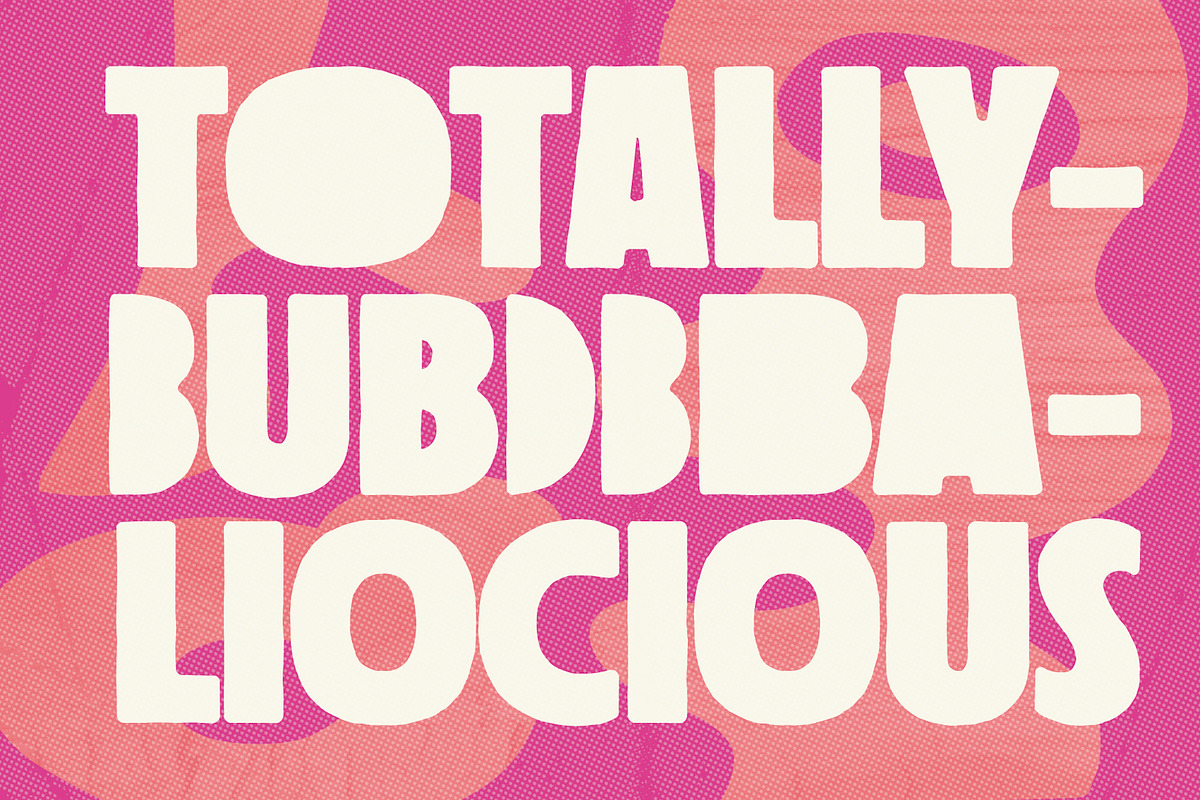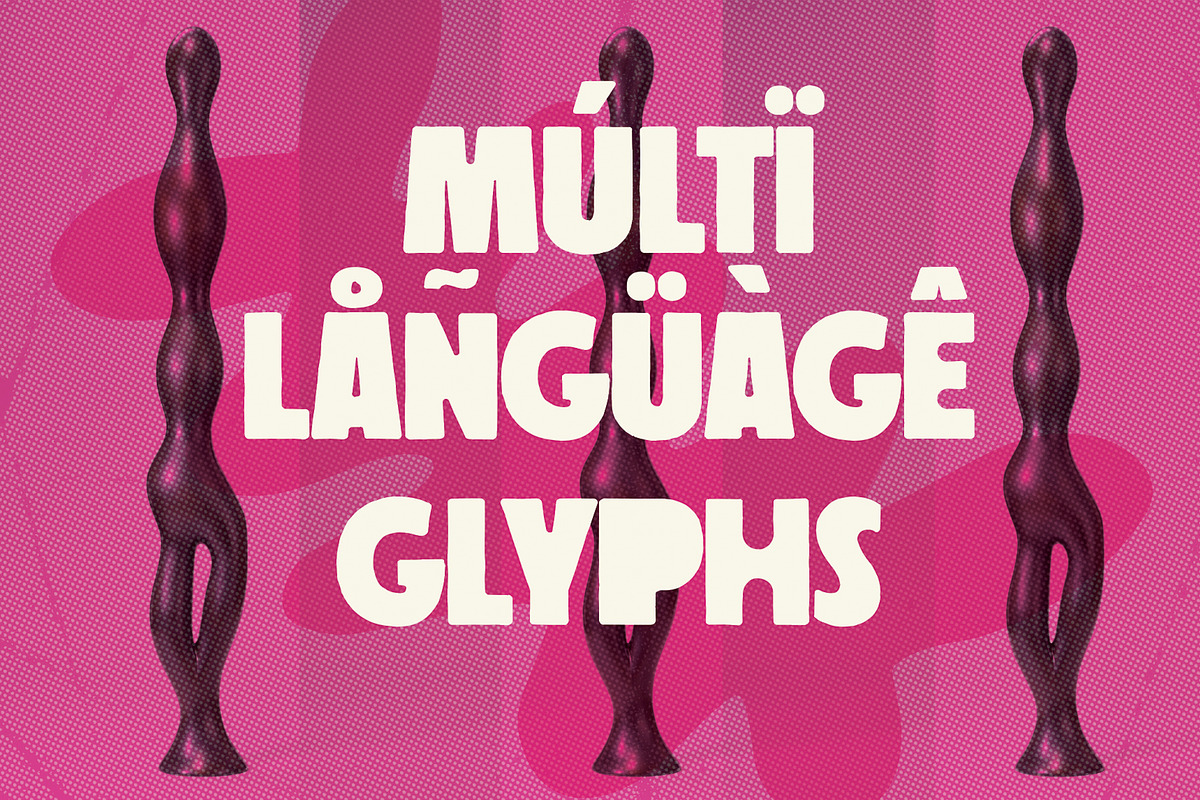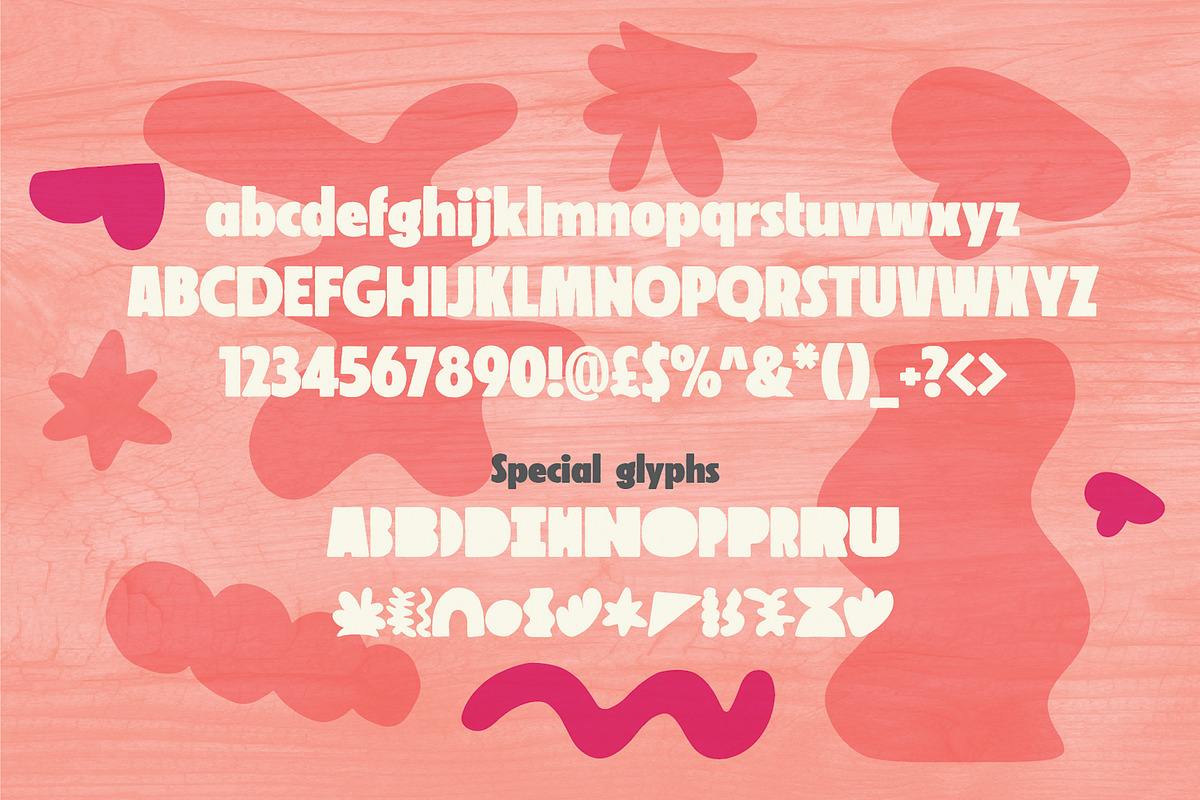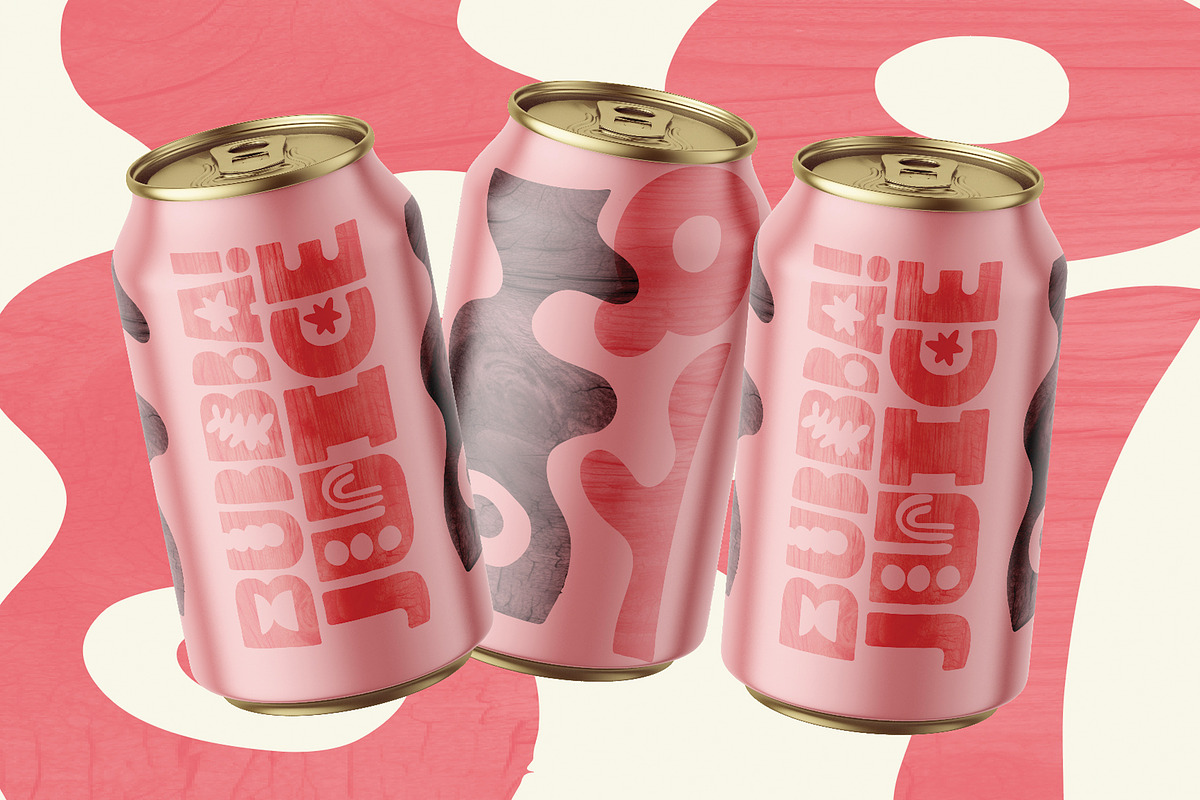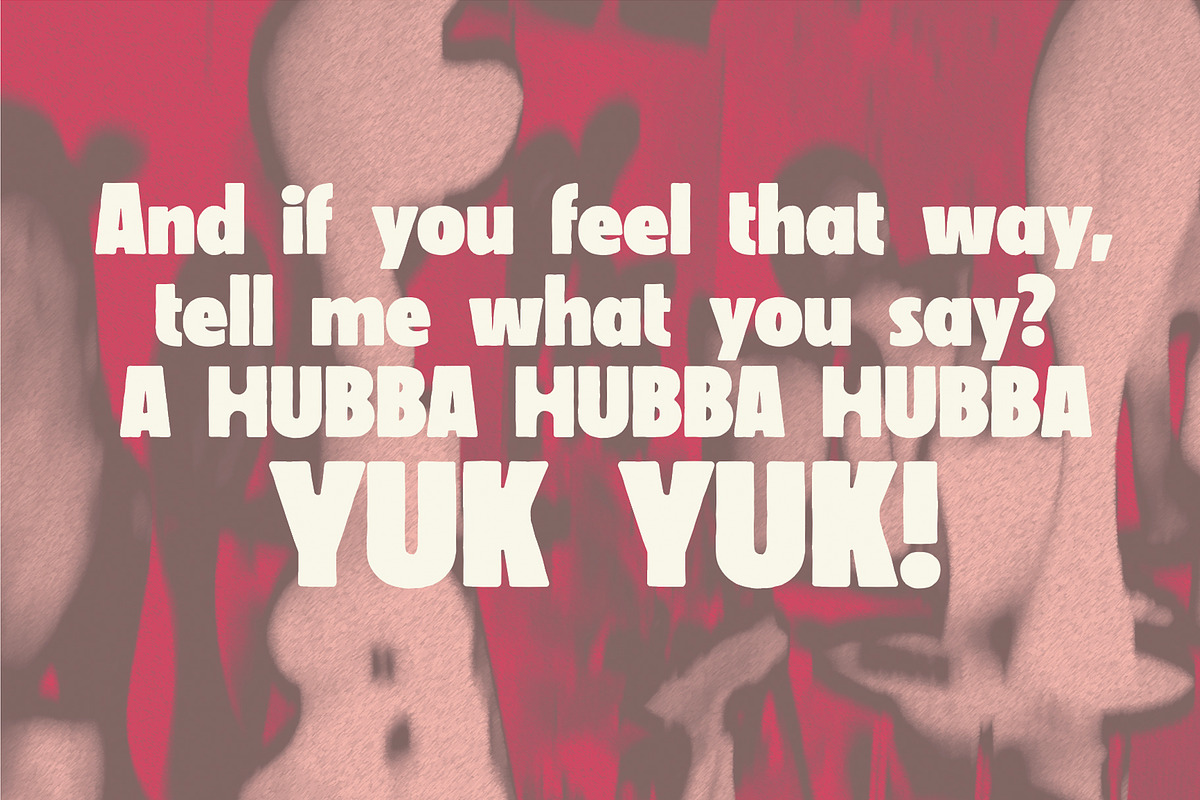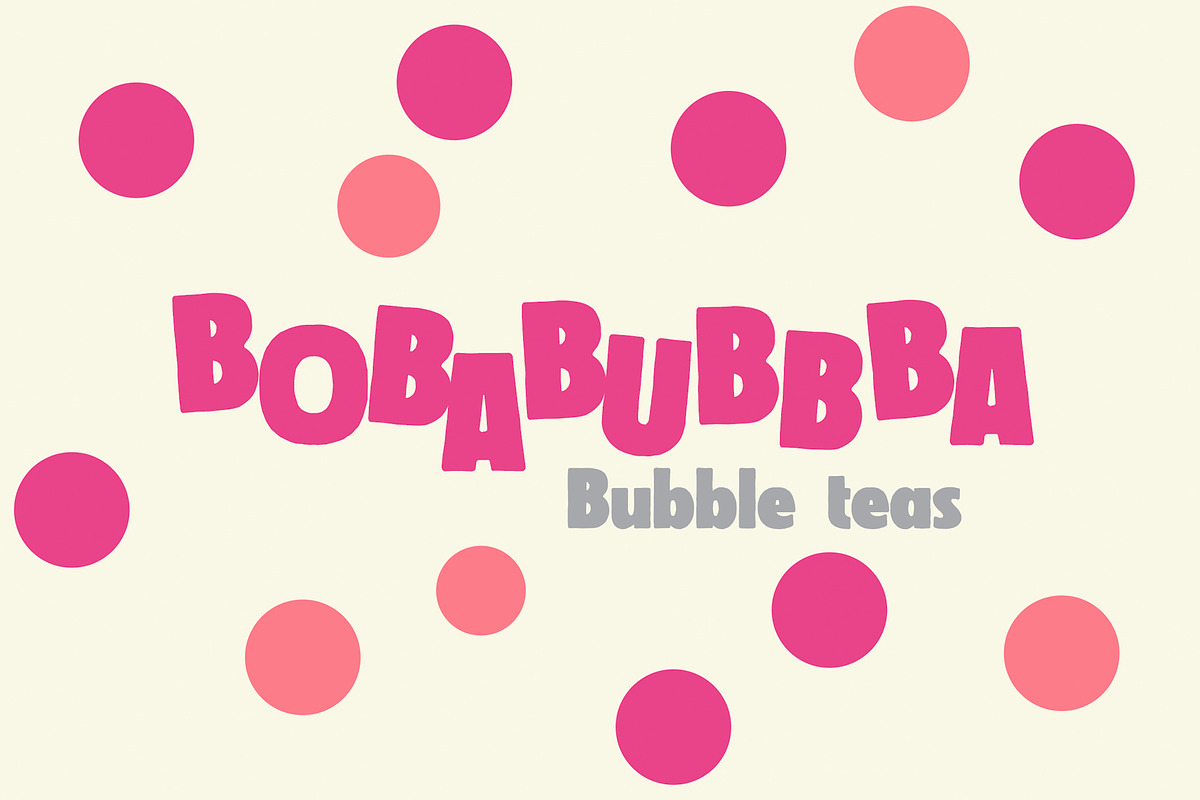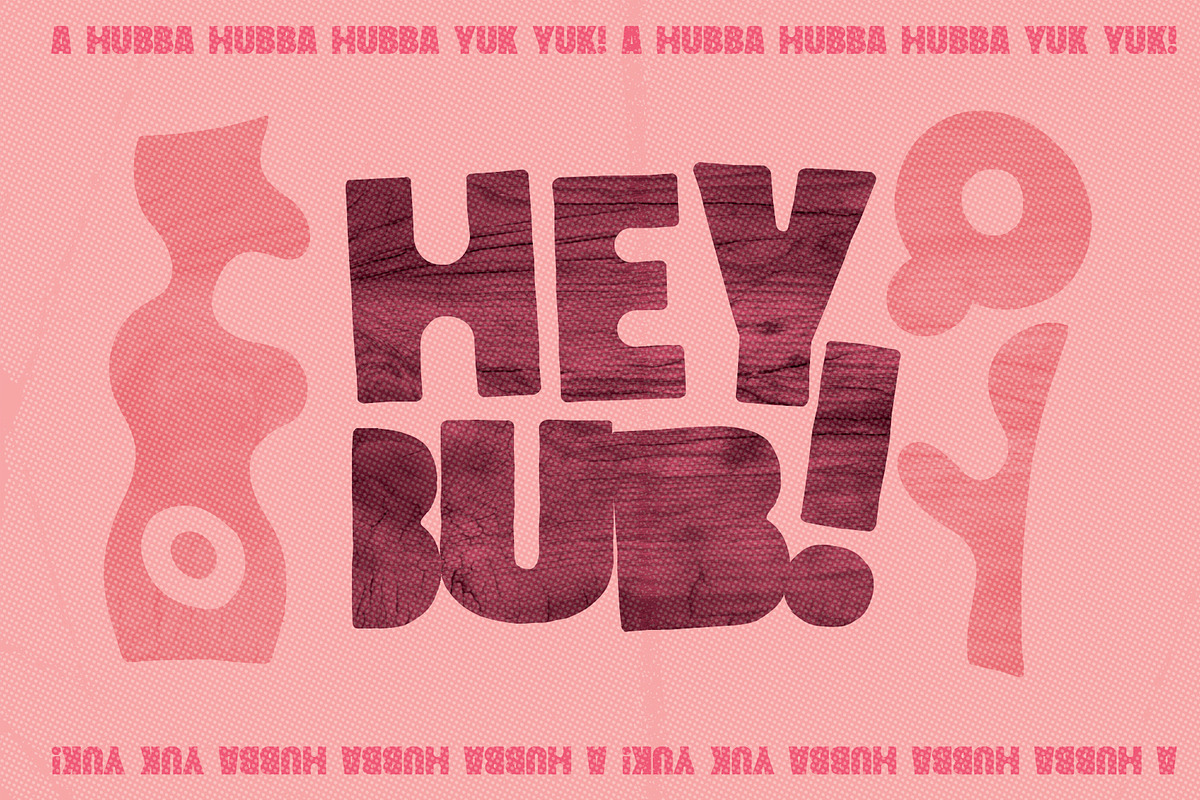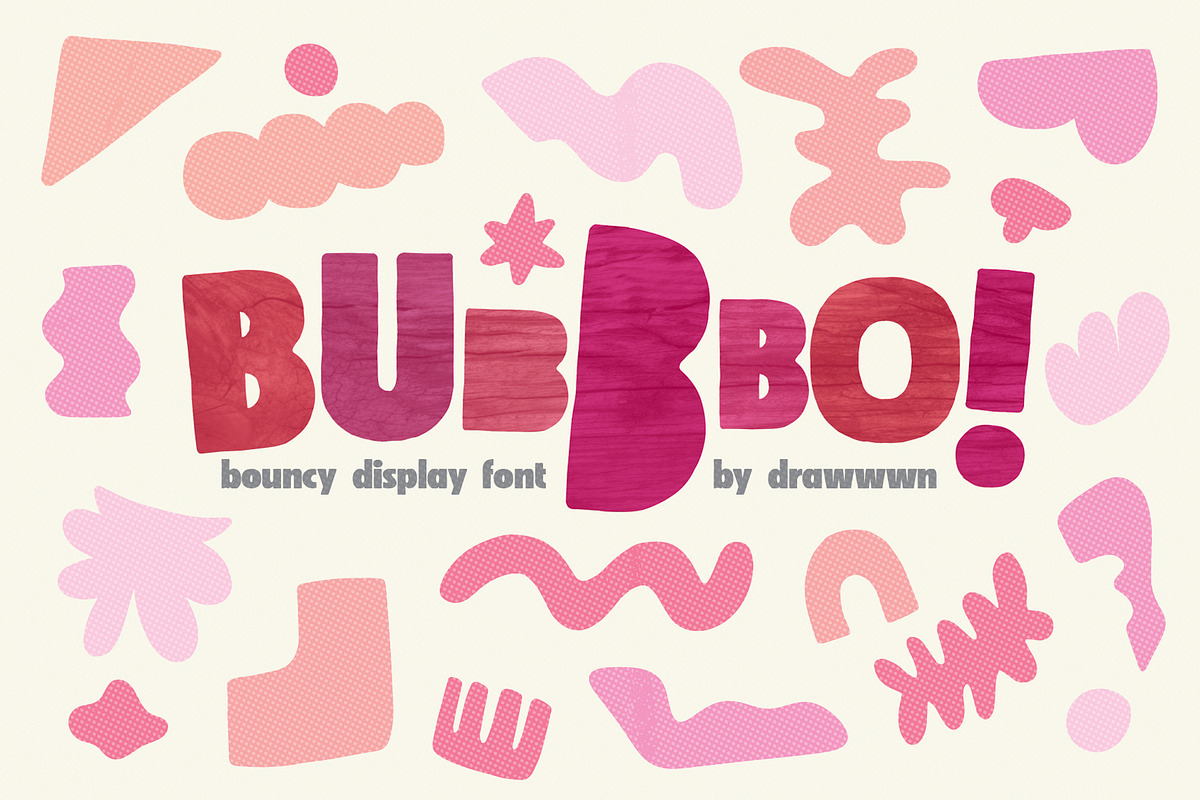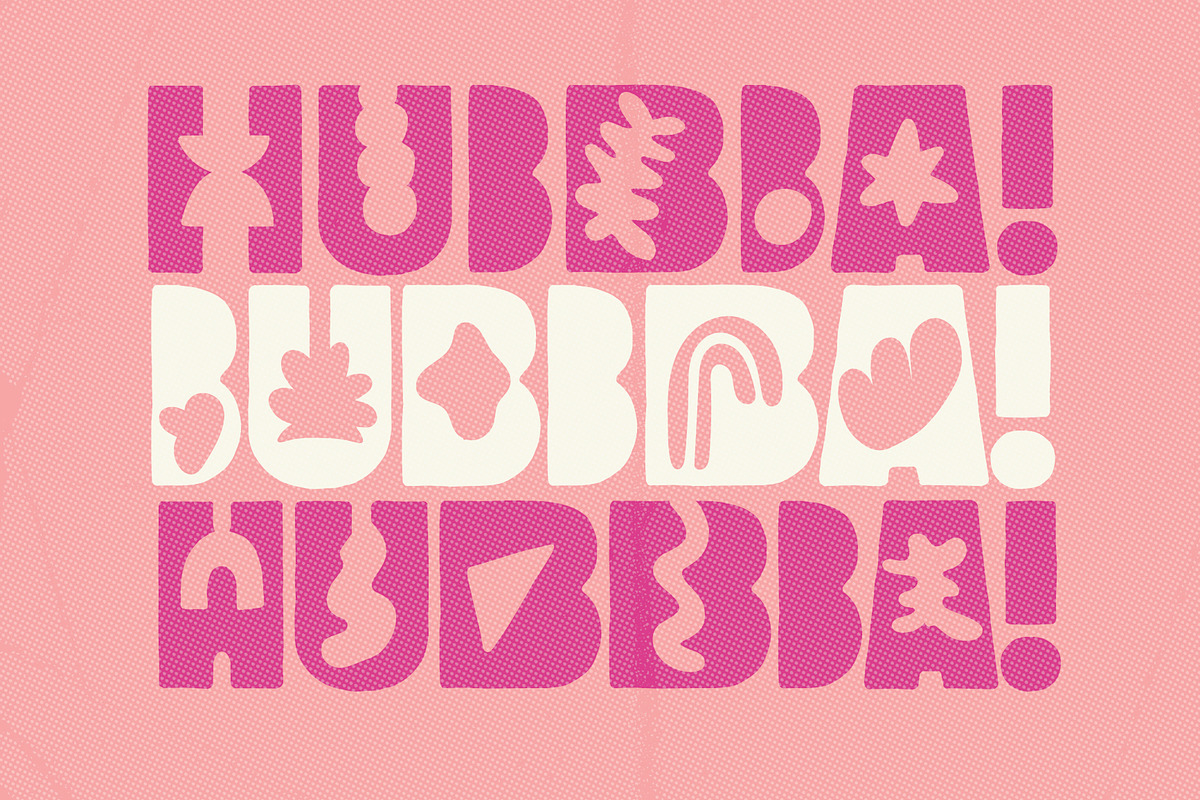
Bubbbo - Fun and chunky font
Bubbbo is a bountitful font! Its rough and chunky style gives it charm, while the extra letter and shape glyphs it offers versatility for customisation. It seems like it would be ideal for creating eye-catching branding and signage that exudes a fun and friendly vibe. Do you have any specific projects in mind for using Bubbbo?